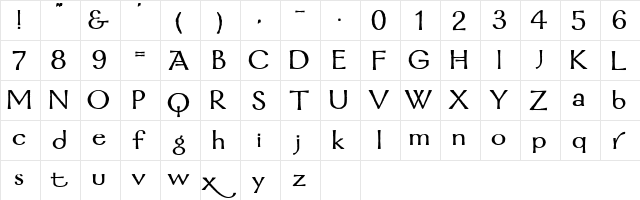
Mordred Demi Bold
Design Context for Mordred Typeface
Mordred is a composed and adaptable typeface that performs quietly and consistently across a wide range of design contexts. The heavy weight commands attention and anchors typographic hierarchies.